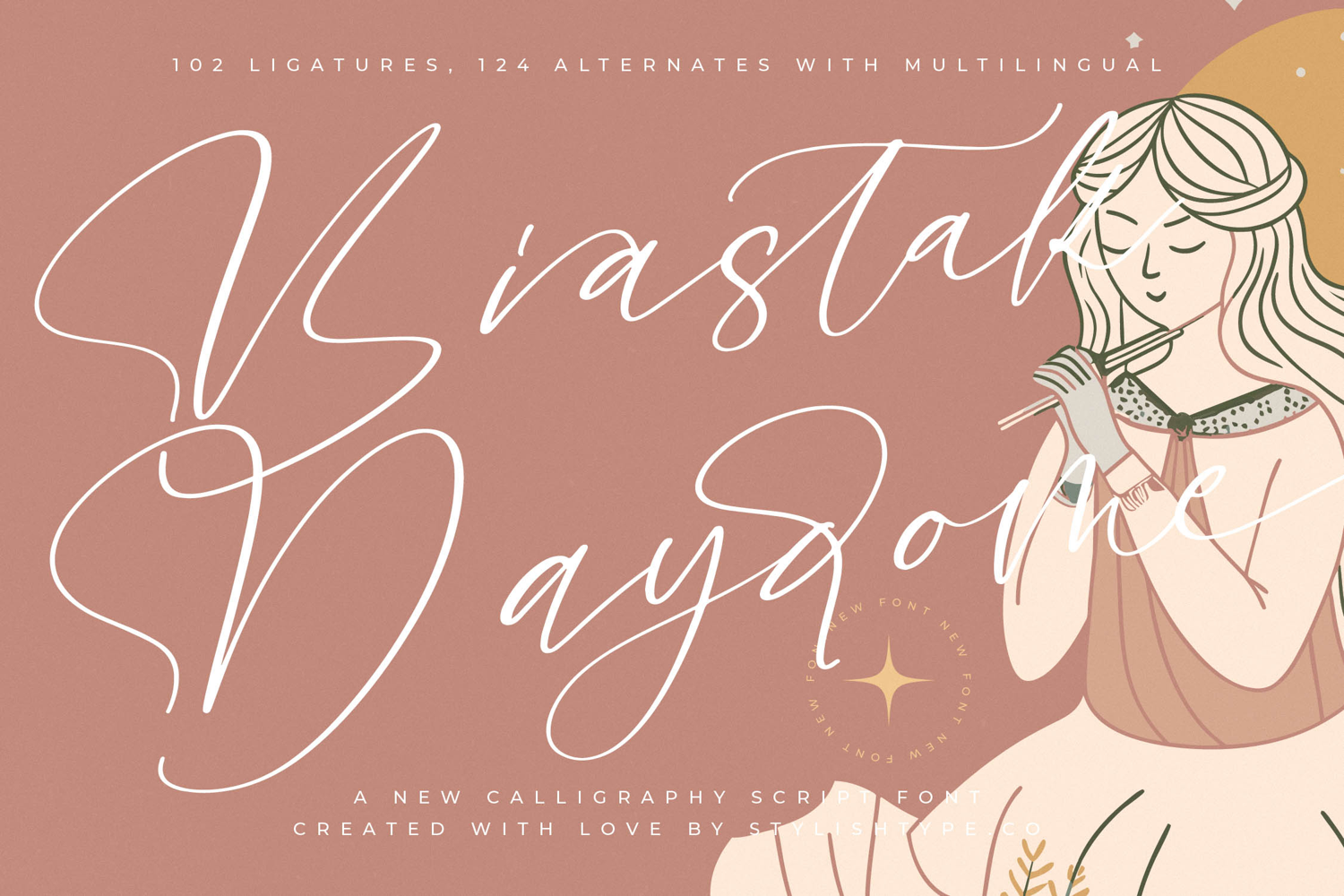
Biastak Daydome - Calligraphy Script Font
Biastak Daydome - Calligraphy Script Font is a stunning, hand-drawn script designed to convey authentic artistry and sophistication. Its delicate, yet expressive strokes feature sweeping ascenders and descenders, creating a mesmerizing rhythm that instantly elevates any layout. This font masterfully balances the organic imperfection of true calligraphy with the polished precision required for professional digital design, making it an essential asset for designers focused on premium aesthetic.